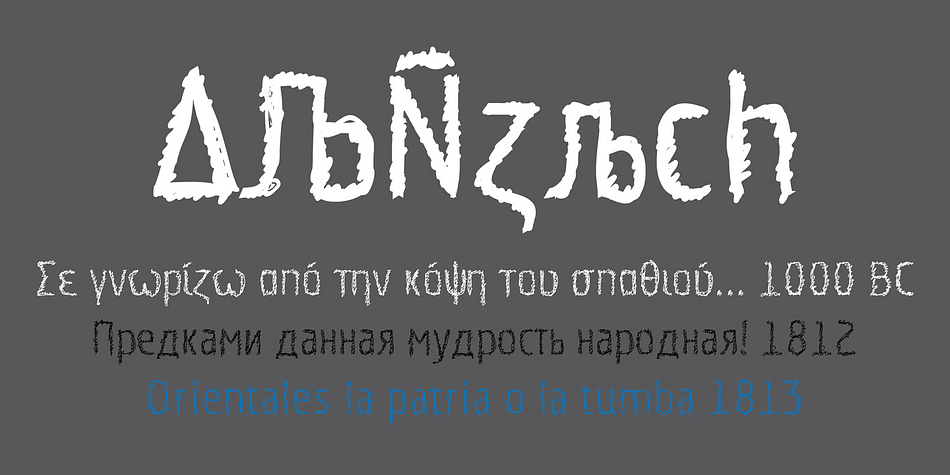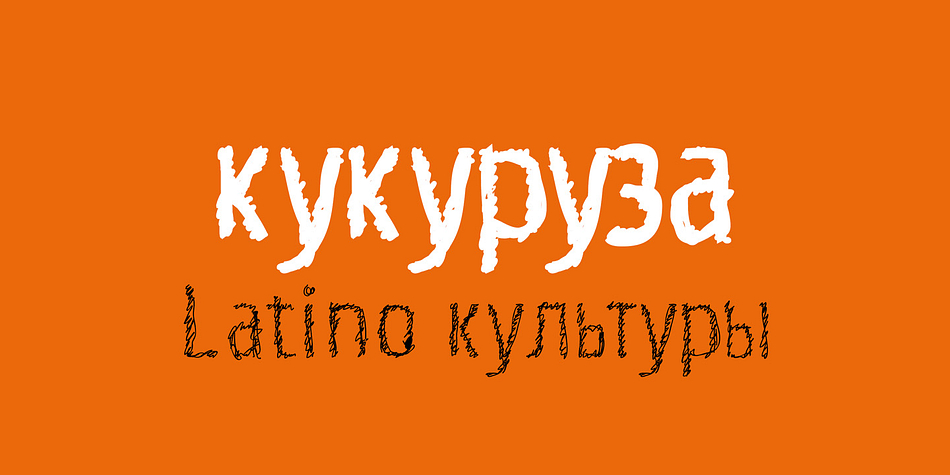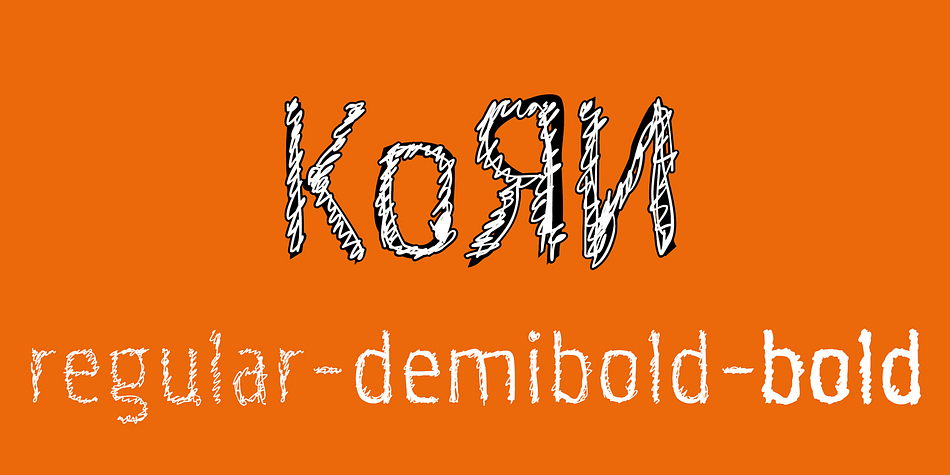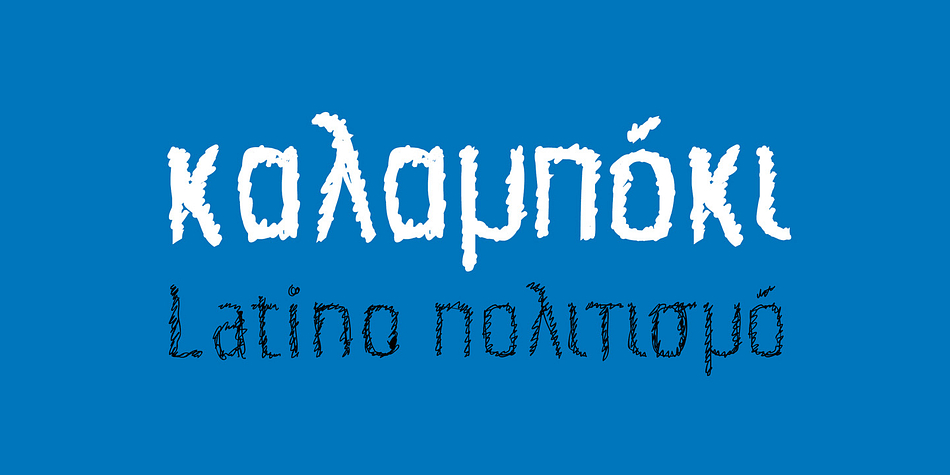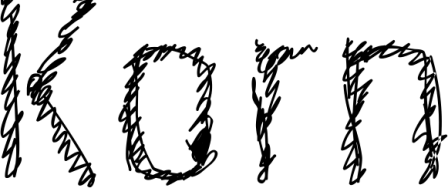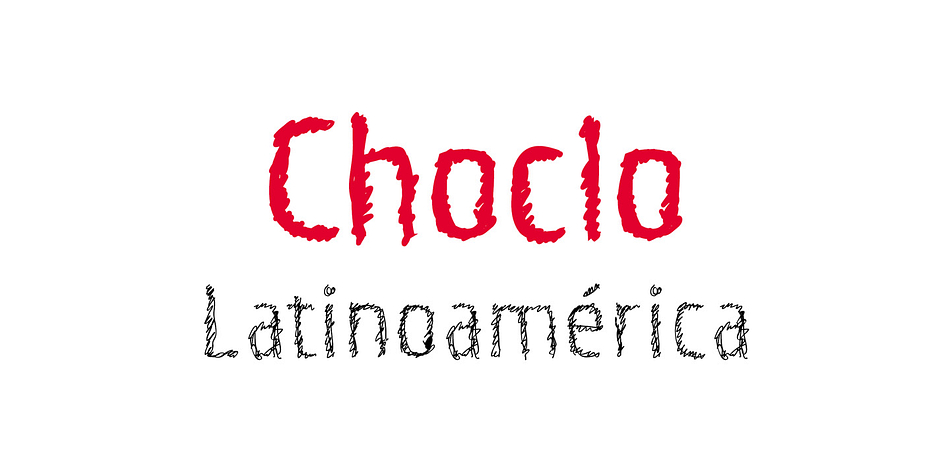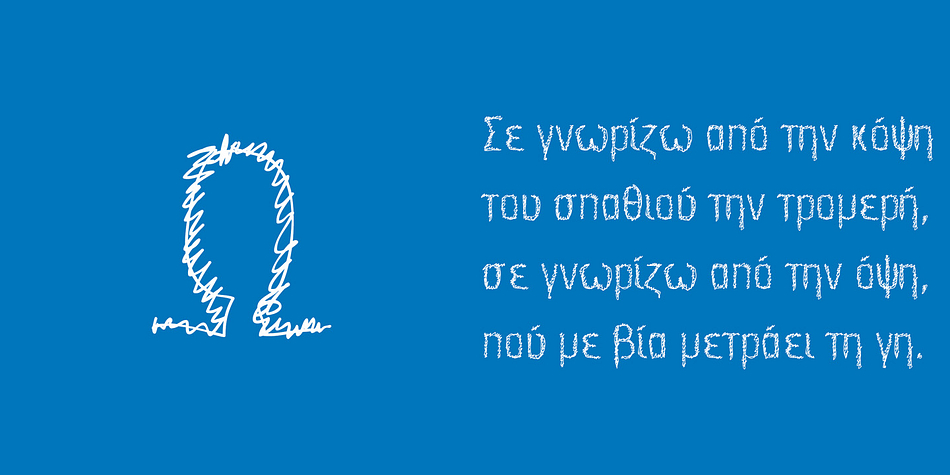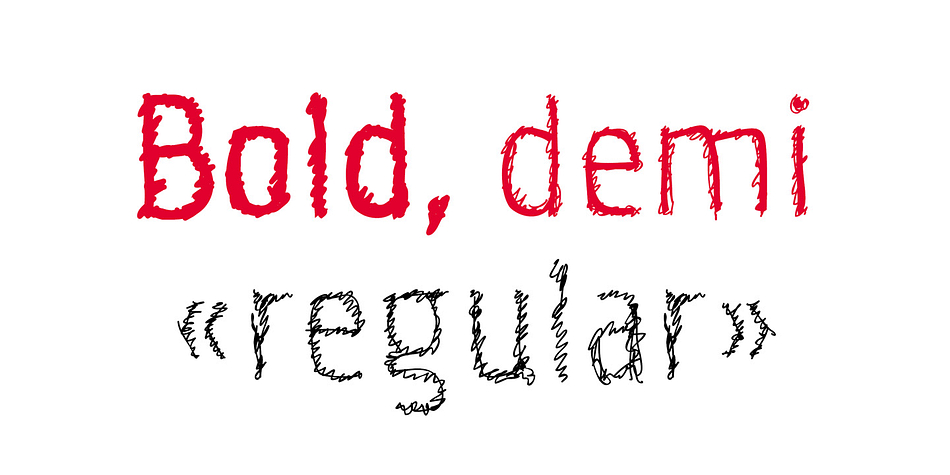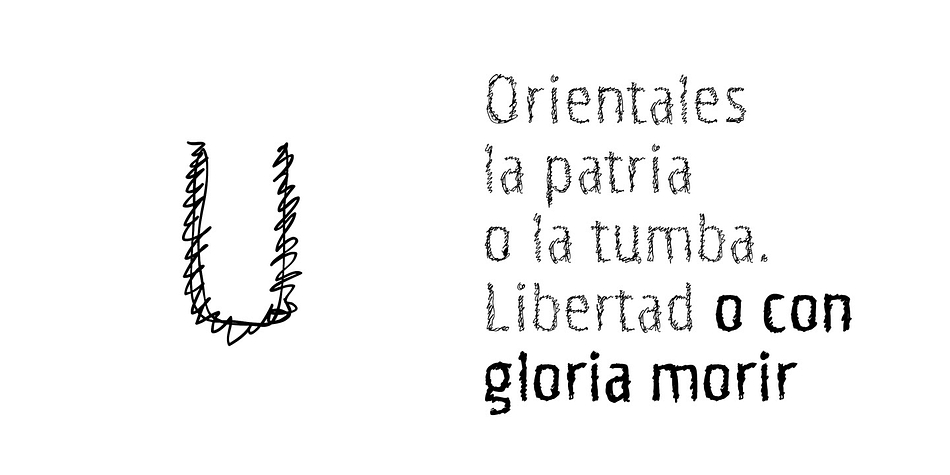
Korn is a grunge and novelty font family. This typeface has three styles and was published by TipoType.
Korn is grunge family with three styles. It is based on a condensed and geometric skeleton. Supports Latin alphabets. Also Cyrillic and Greek! You can superimpose in layers and expand your possibilities